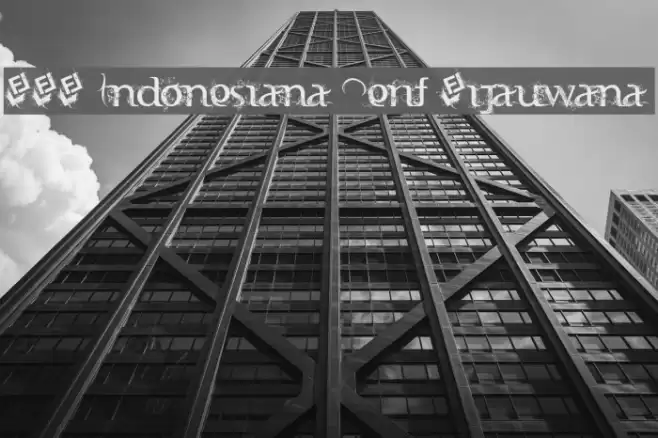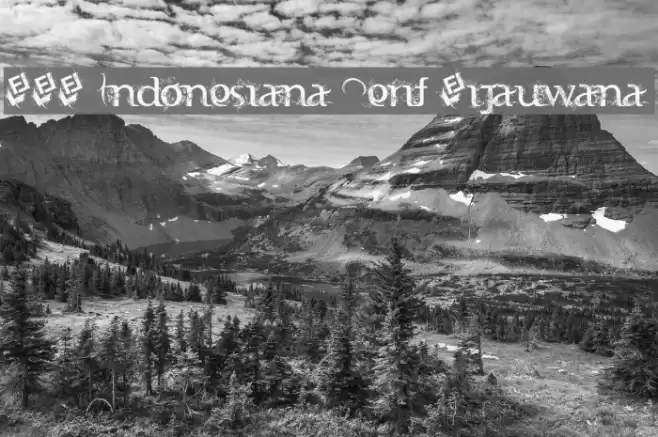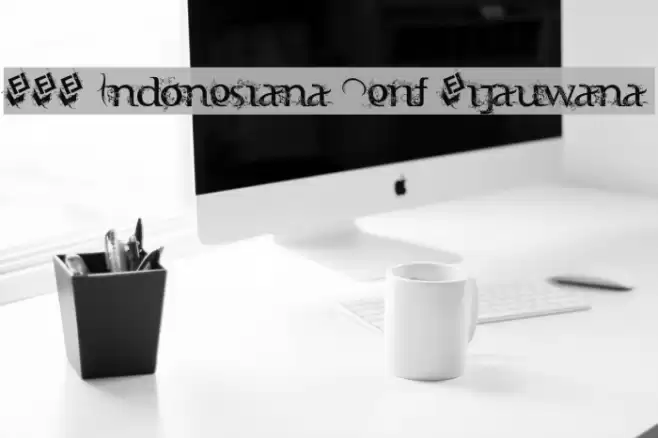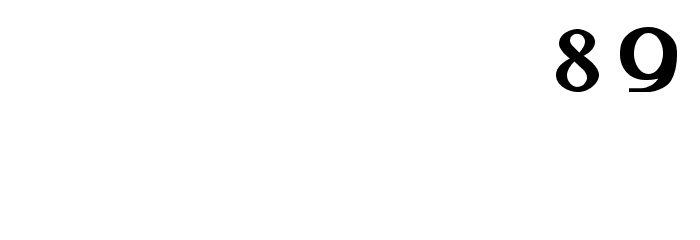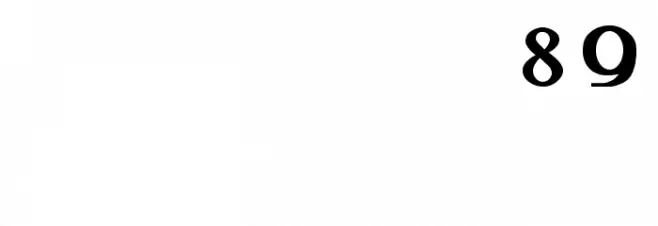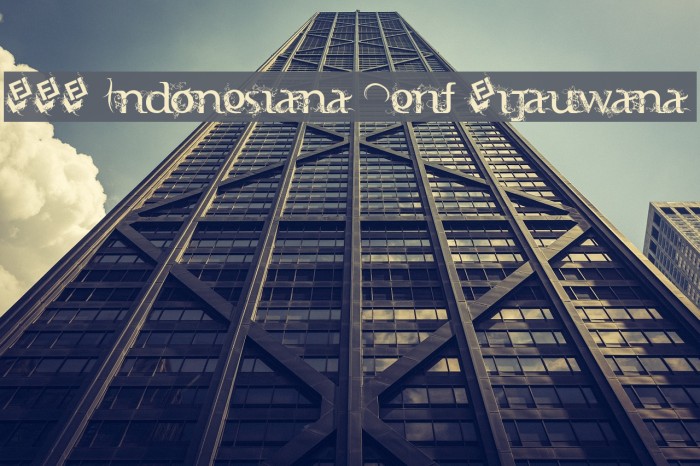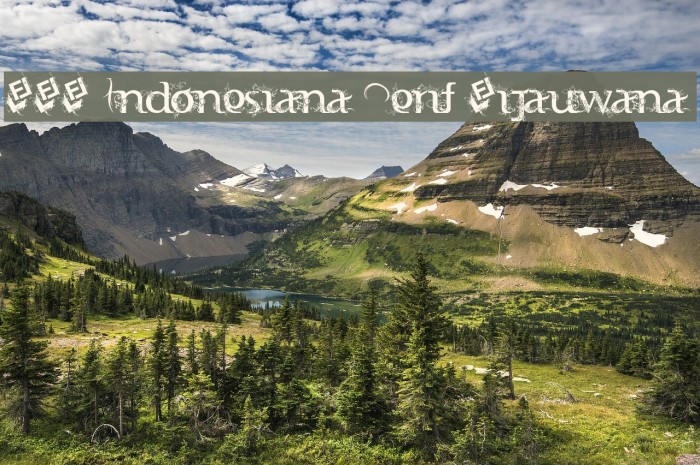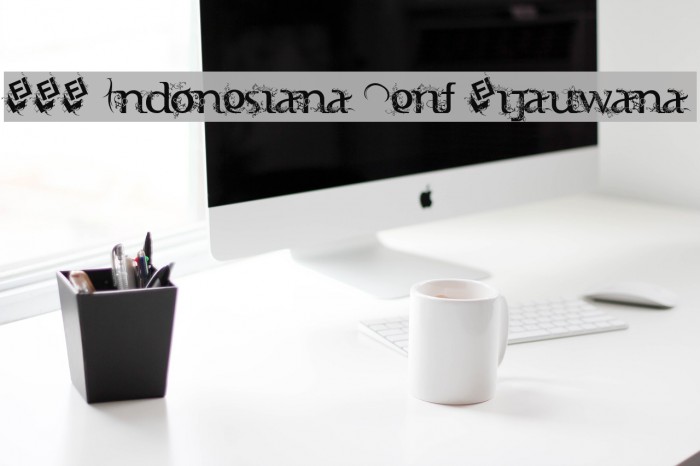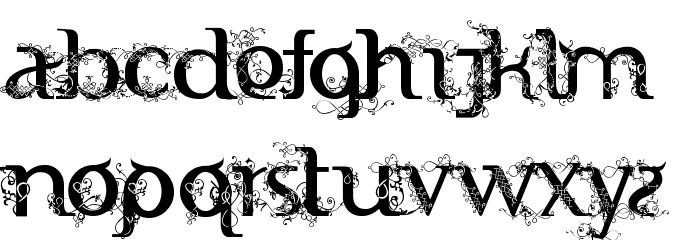
FTF Indonesiana Serif Hijauwana Font
FTF Indonesiana Serif Hijauwana Description
This font is a highly decorative and ornate typeface, featuring intricate floral and vine-like embellishments that intertwine with the characters. The uppercase letters are particularly elaborate, with bold strokes and detailed flourishes that extend from the main body of each letter. The lowercase letters maintain a similar style, though slightly less complex, allowing for better readability. The numbers are bold and maintain the decorative theme, though they are less intricate than the letters. This font is designed to capture attention and convey a sense of elegance and sophistication, making it ideal for artistic and creative projects.
An ornate, decorative font with intricate floral embellishments from Uncategorized fonts.
- Proposed Projects: Ideal for wedding invitations, event posters, artistic branding, and decorative headings.
- Use Case: Logos, Headlines, Artistic projects